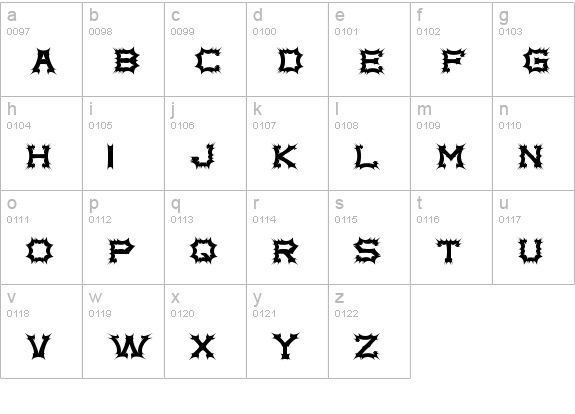
Complex bruja Font Details
Introducing the mesmerizing Complex bruja font, a true work of art that effortlessly blends elegance with a touch of mystique. This extraordinary typeface will captivate your audience with its intricate details and unique design elements. Complex bruja font is a striking display font that showcases a perfect blend of sharp edges and fluid curves, creating a visually stunning and captivating appearance. Its carefully crafted letterforms exude a sense of mystery and enchantment, making it the perfect choice for projects that require a touch of the extraordinary. With its wide range of characters and ligatures, Complex bruja font offers endless possibilities for creative expression. Whether you are designing a logo, crafting a poster, or working on a branding project, this font will undoubtedly elevate your design to new heights. What sets Complex bruja font apart is not just its exceptional design, but also its availability as a free download. Yes, you read that right! This remarkable font is freely available to download at FontsMarket.com, the leading platform for high-quality fonts. Now, you can enjoy the beauty and sophistication of Complex bruja font without breaking the bank. So why wait? Discover the magic of Complex bruja font and unlock a world of endless design possibilities. Download it today from FontsMarket.com and let your creativity soar to new dimensions.